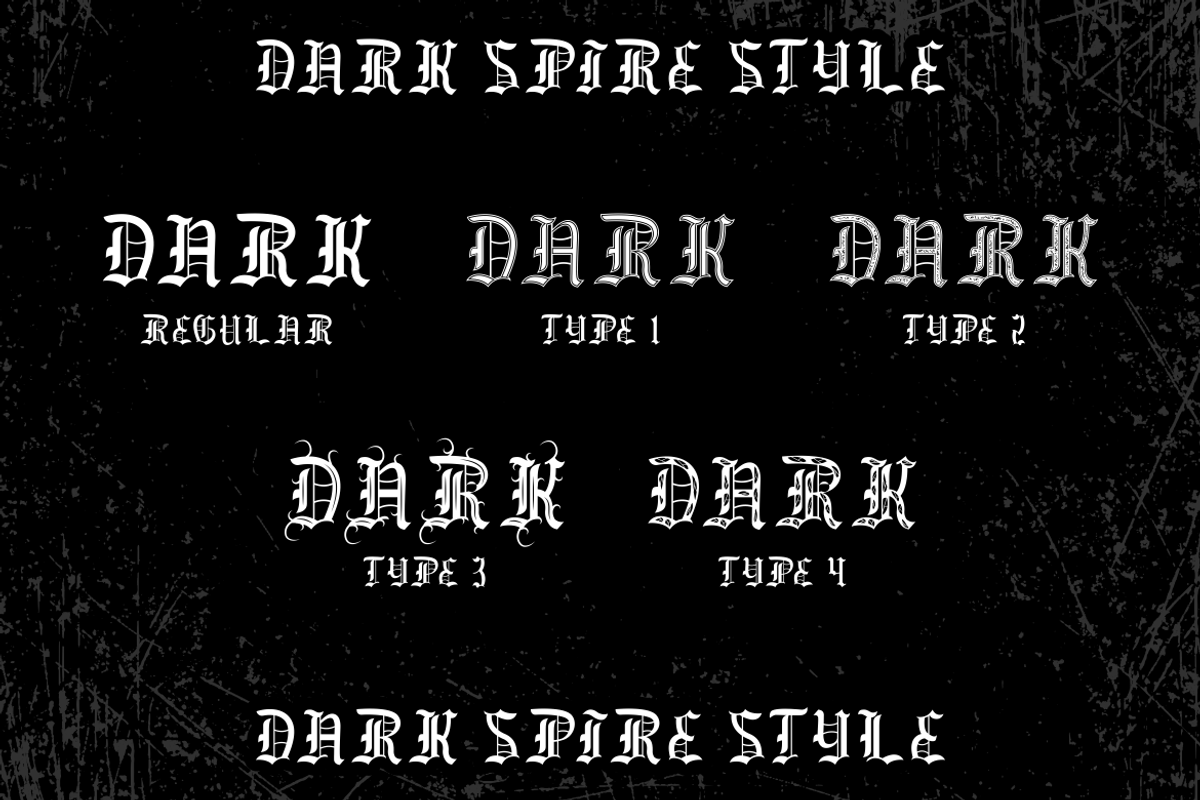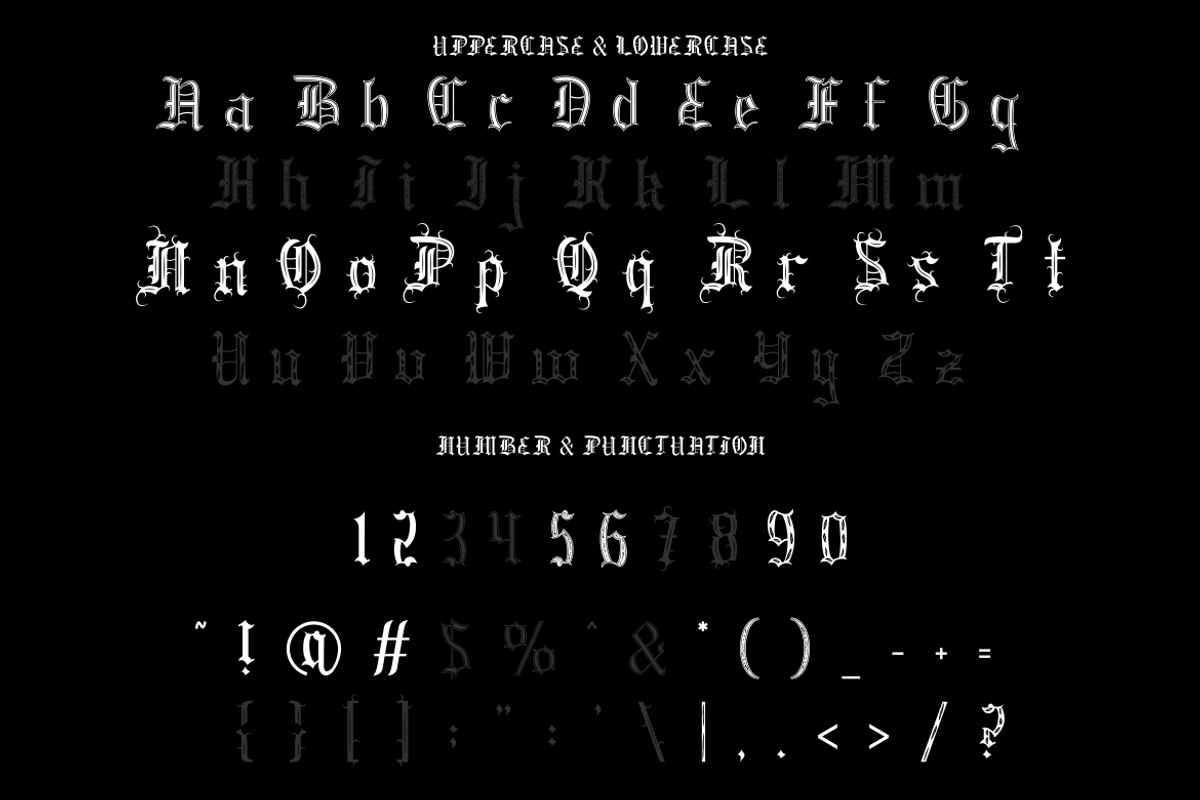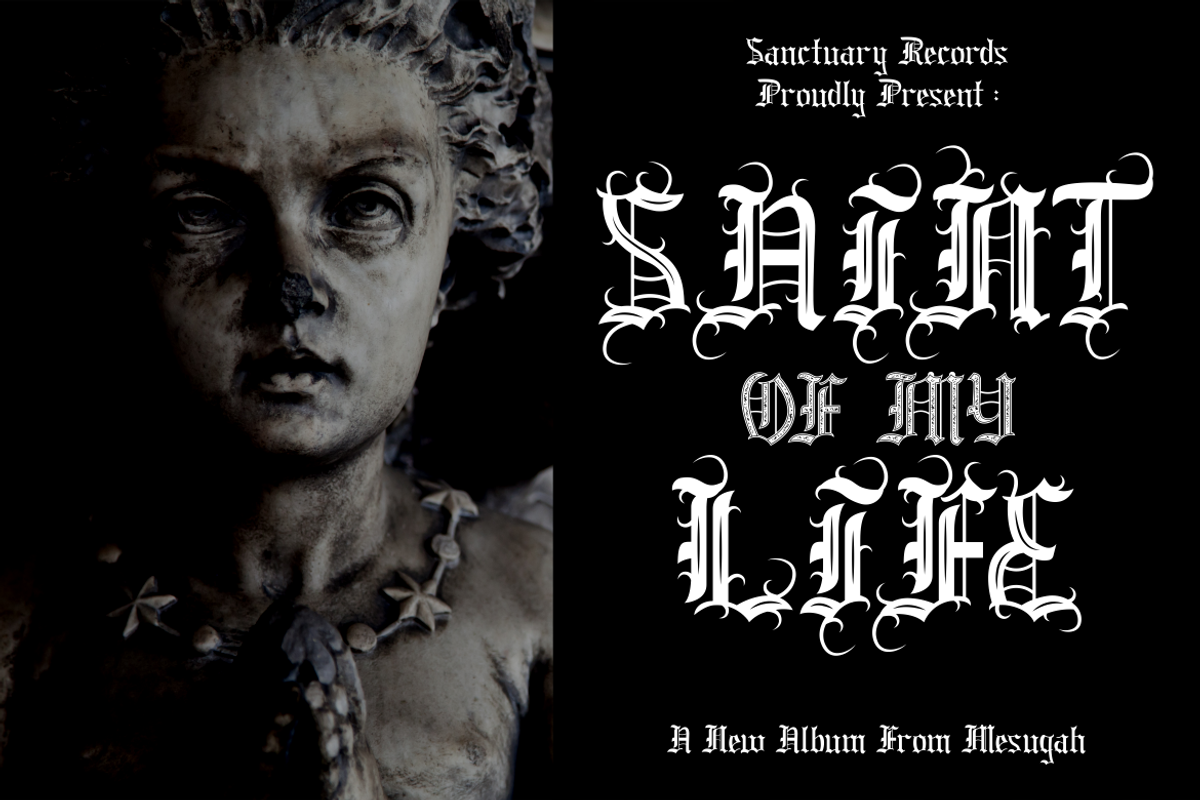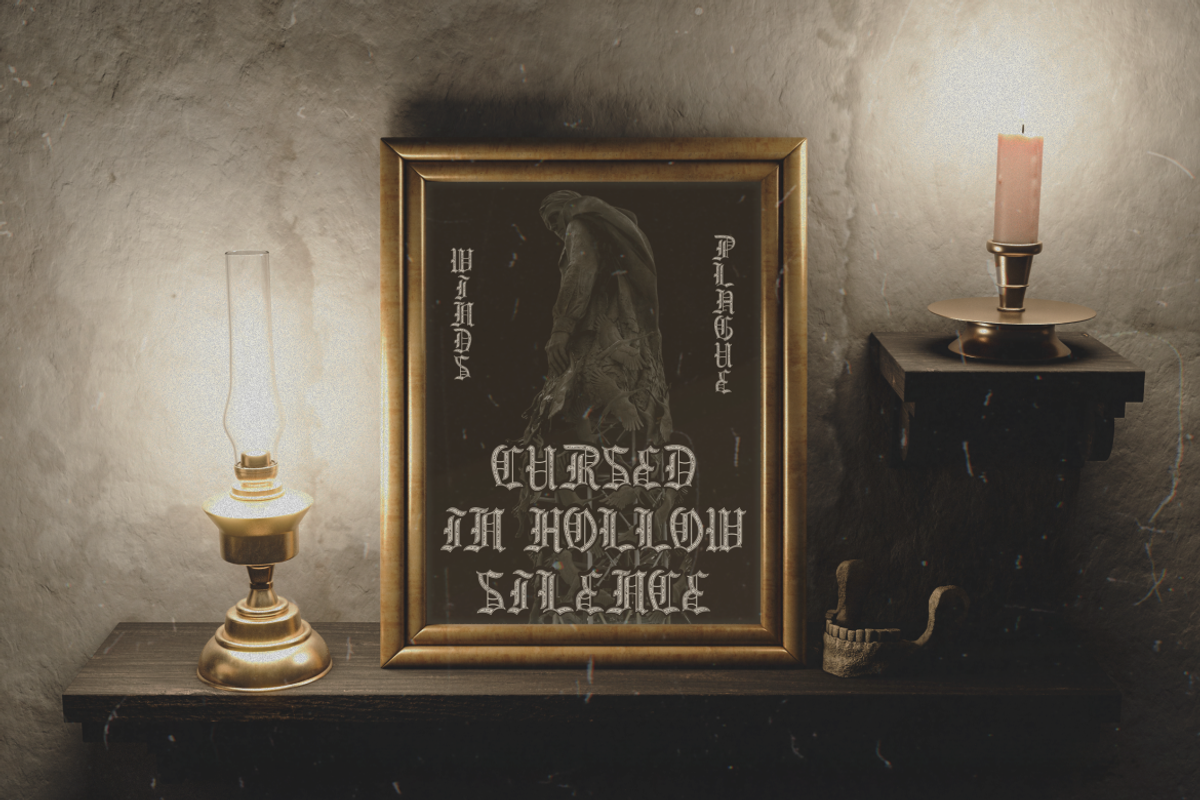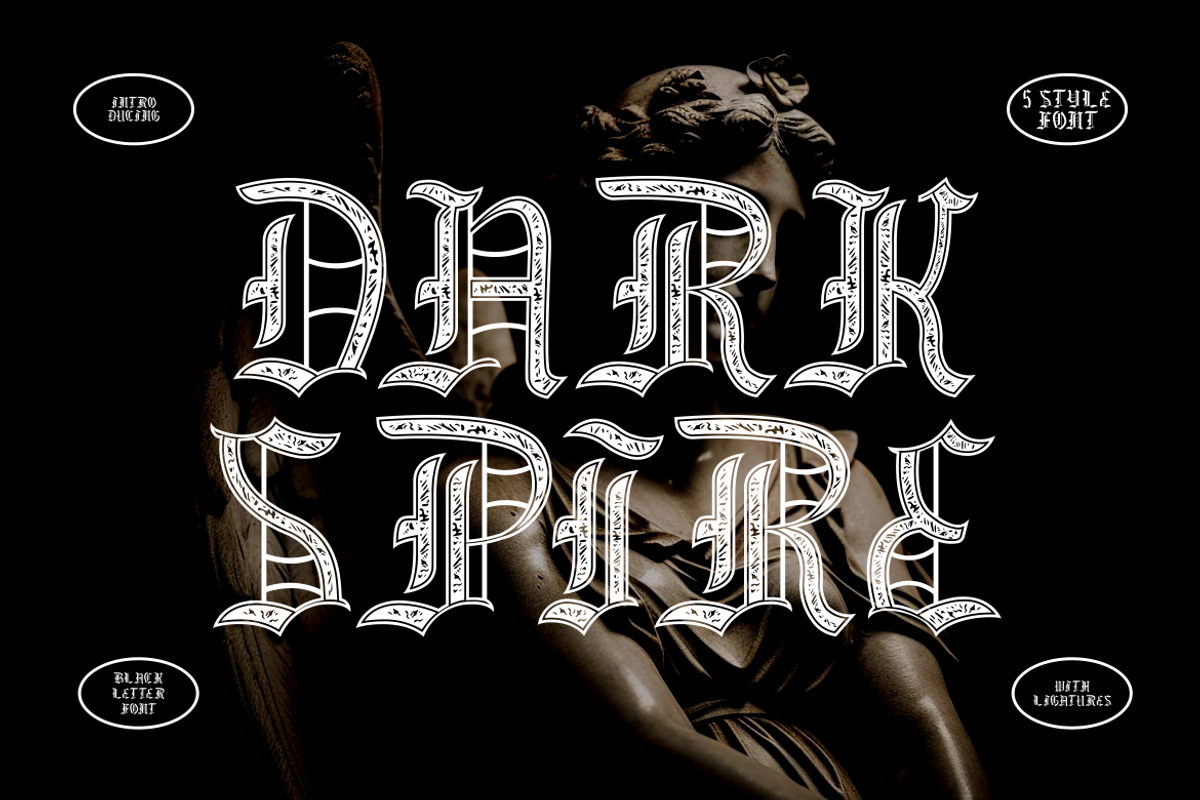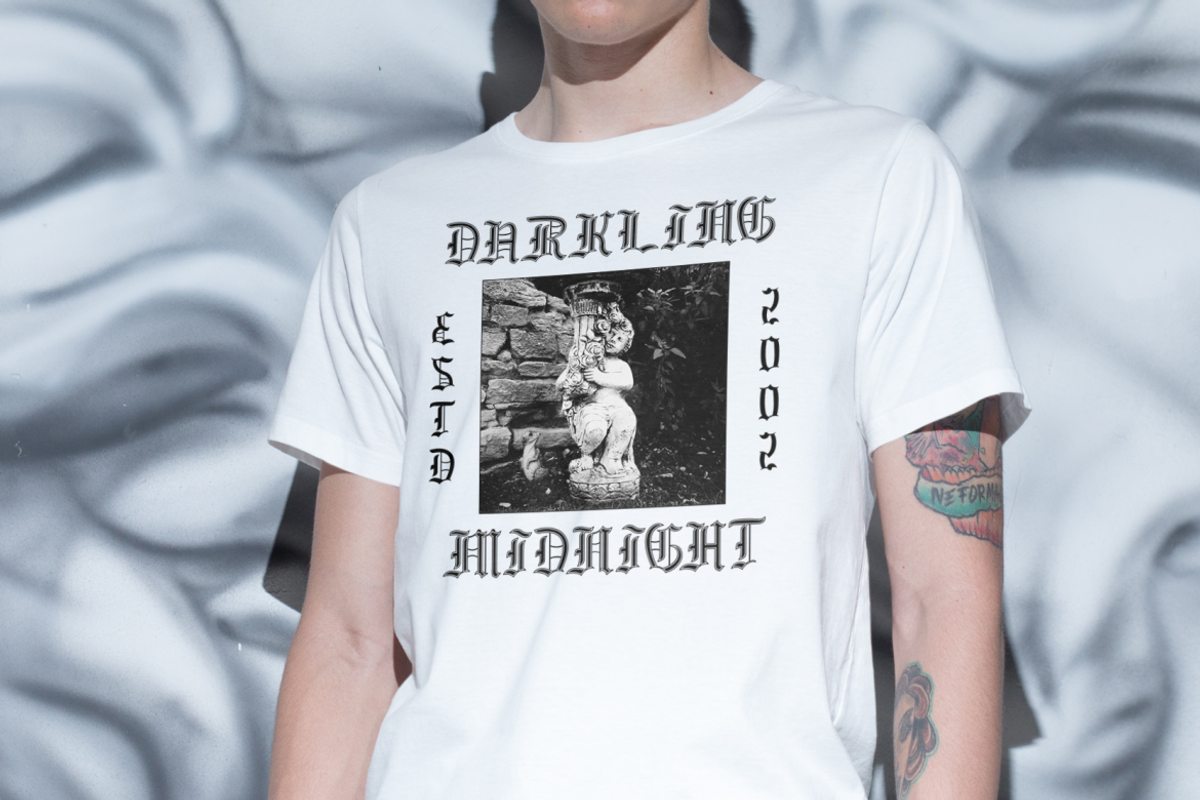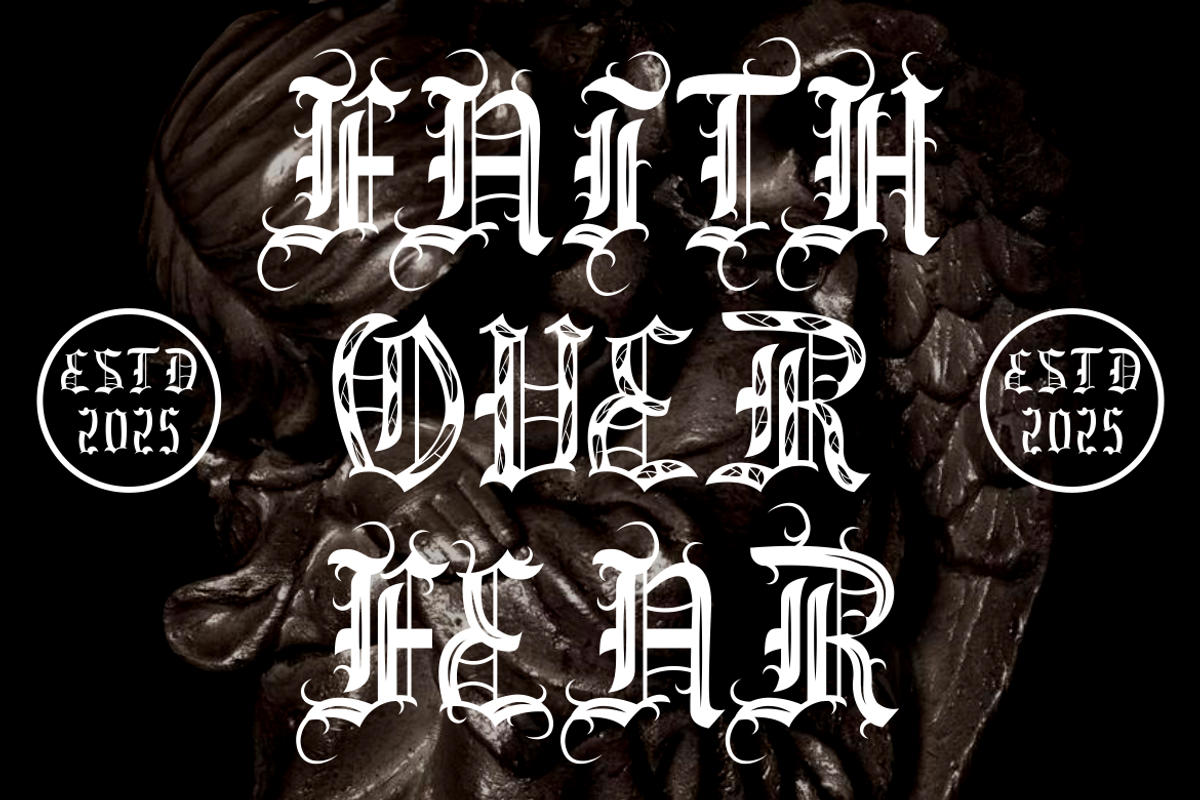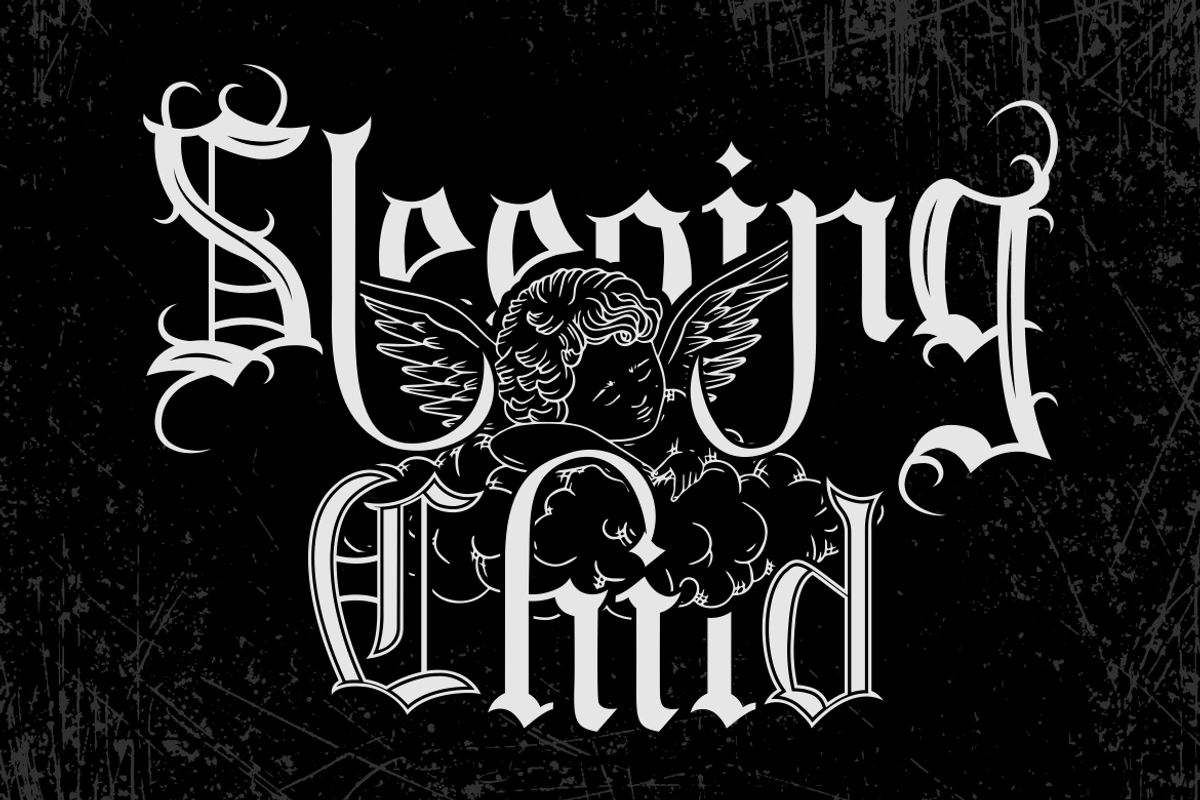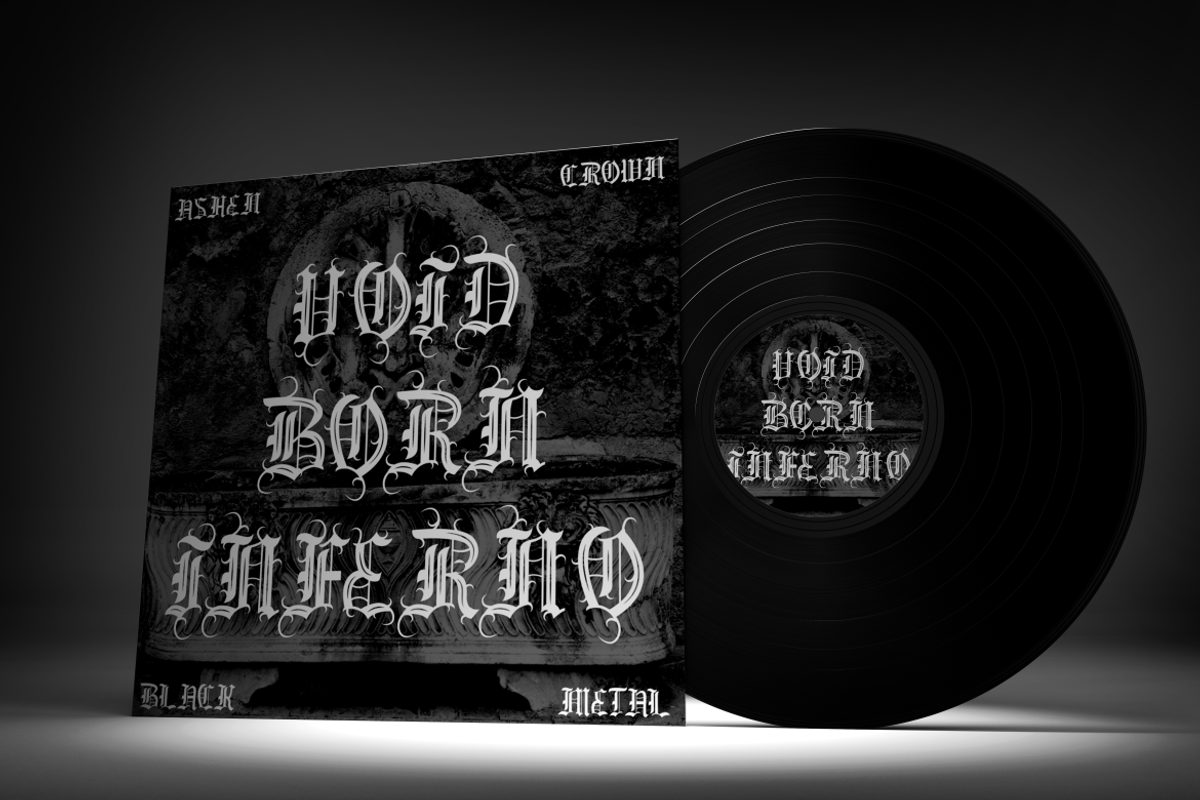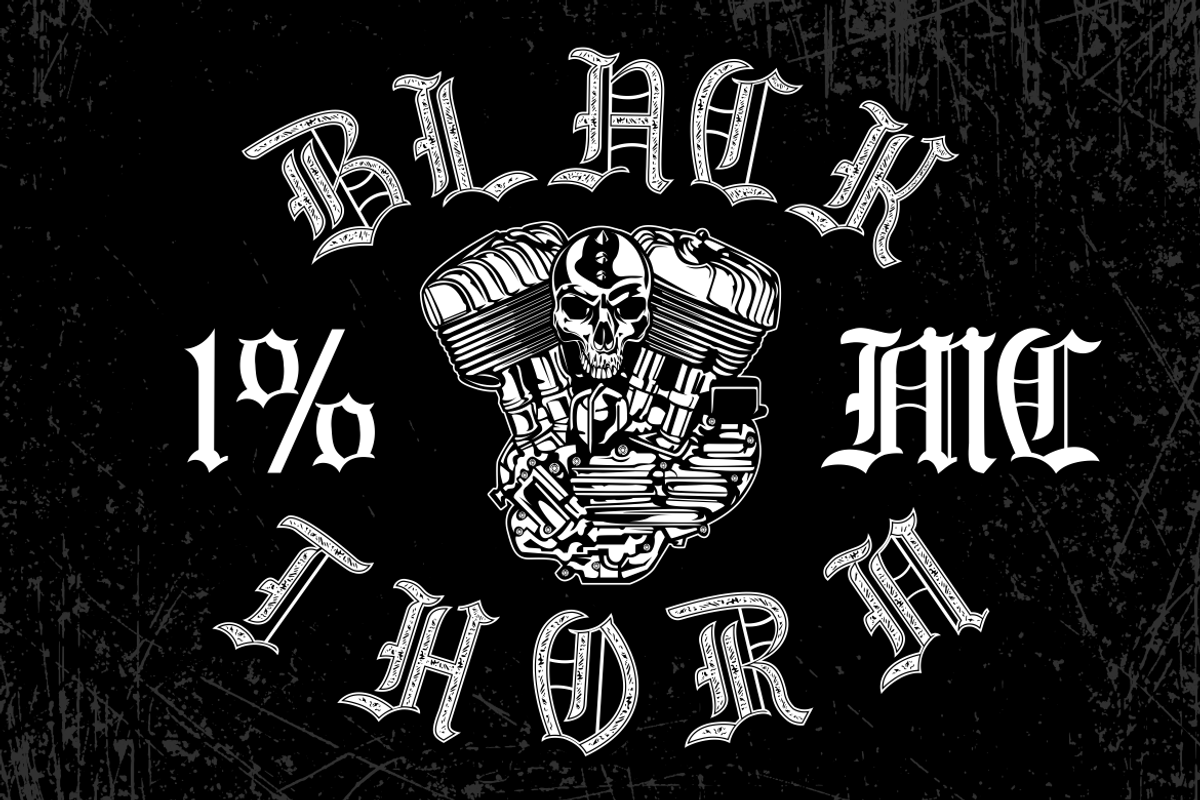
Dark Spire Blackletter Font
Dark Spire is a blackletter font forged in gothic spirit bold, sharp, and theatrically intense. Each character is meticulously designed with ornamental precision, featuring extended spikes, intricate counters, and dramatic curves. It offers five distinct styles that range from textured, inline, and solid to outline variations ideal for diverse visual applications. The stylized ligatures and swash-like terminals give each composition a ceremonial feel, echoing dark romanticism, medieval artistry, and tattoo subcultures. Whether for metal band logos, underground film titles, streetwear branding, or immersive poster designs, Dark Spire stands as a symbol of power and expression.
This font is optimized not just for visual impact, but for creative versatility. Its uppercase blackletter forms blend seamlessly into grungy textures or ornate layouts, making it adaptable for packaging, gothic novels, clothing labels, or thematic event graphics. The balance between spiked edges and harmonious weight creates readability while preserving the authentic gothic aesthetic. Ideal for use across album covers, craft projects, sticker packs, film branding, and dramatic editorial design, Dark Spire transforms every word into a statement of bold narrative.